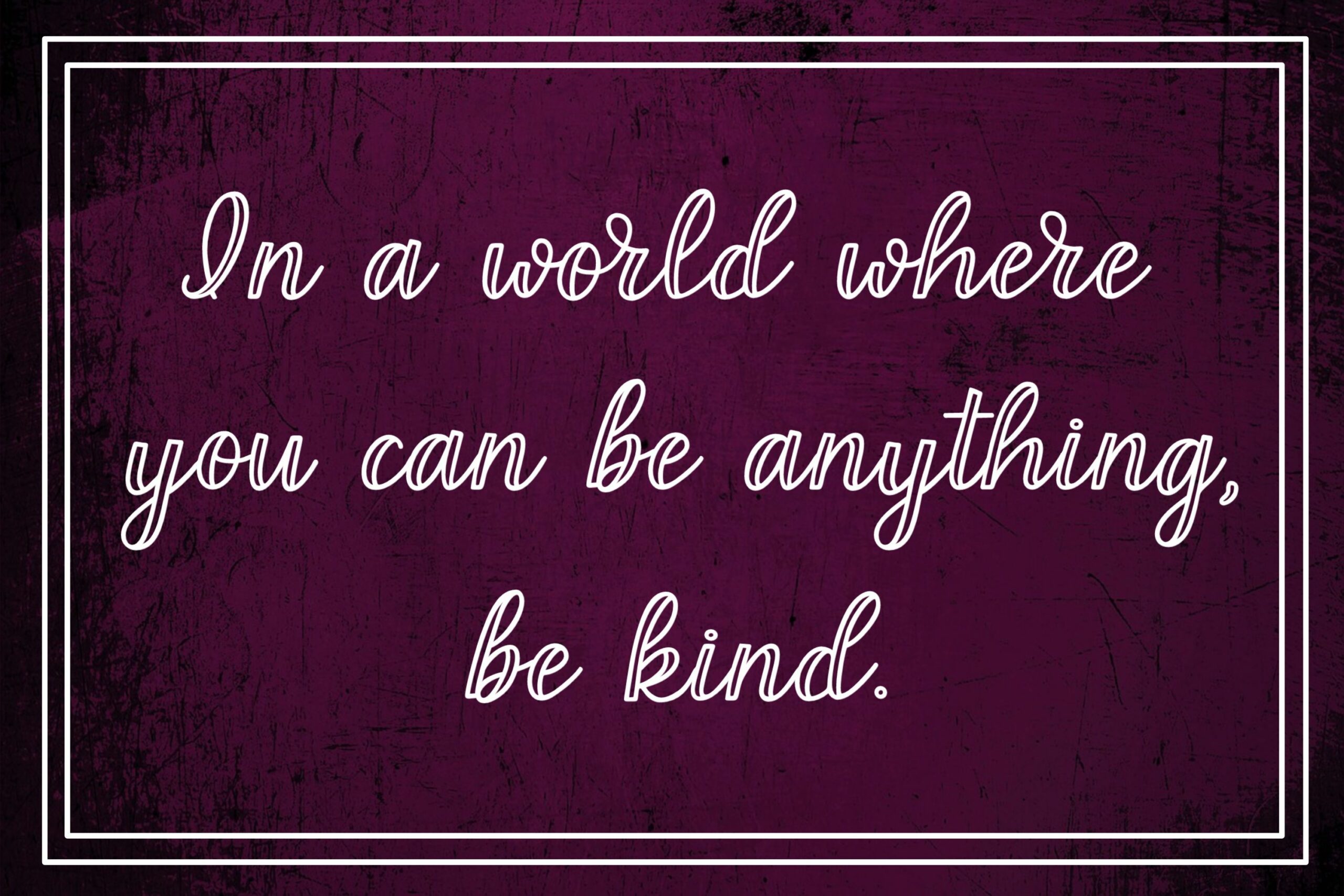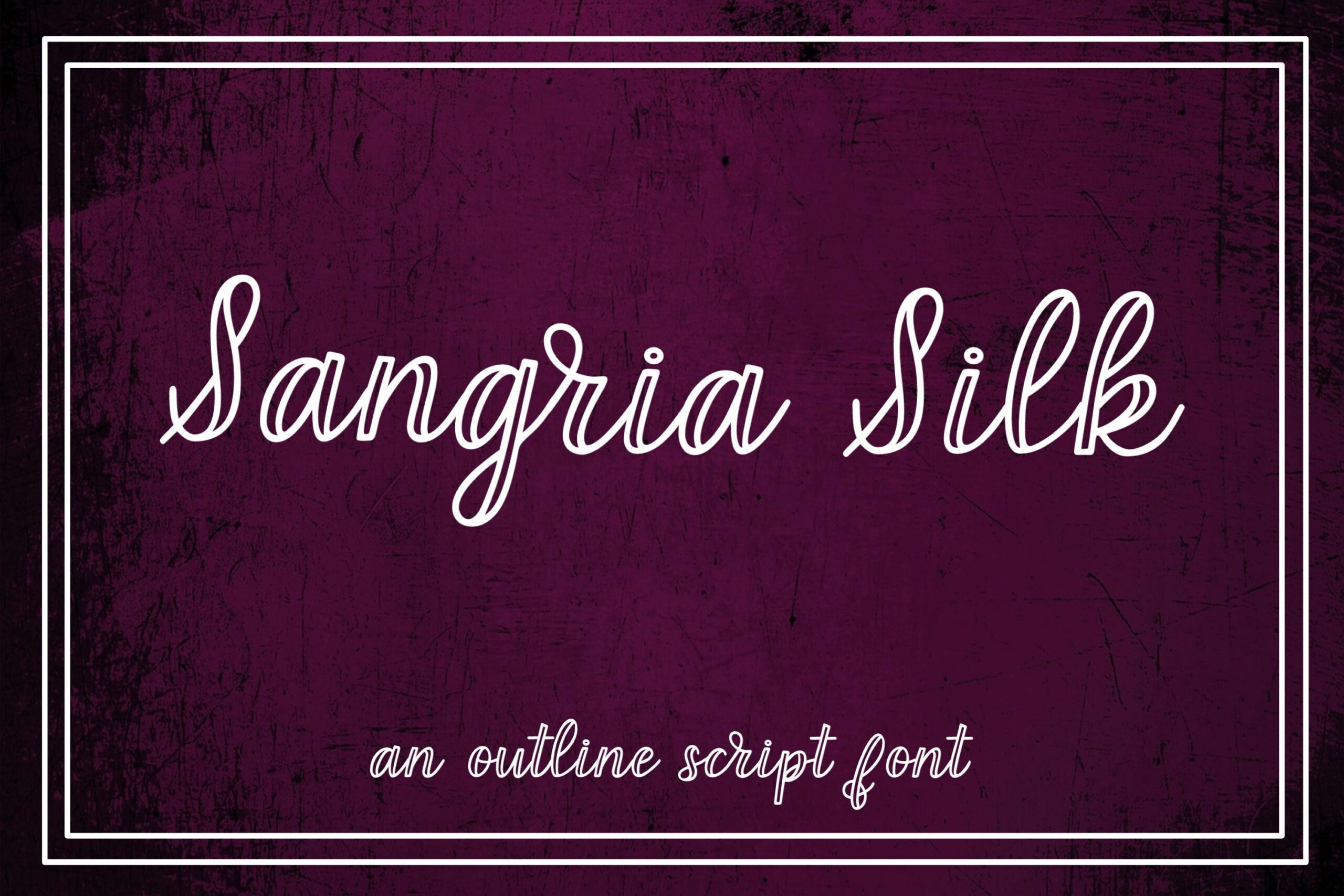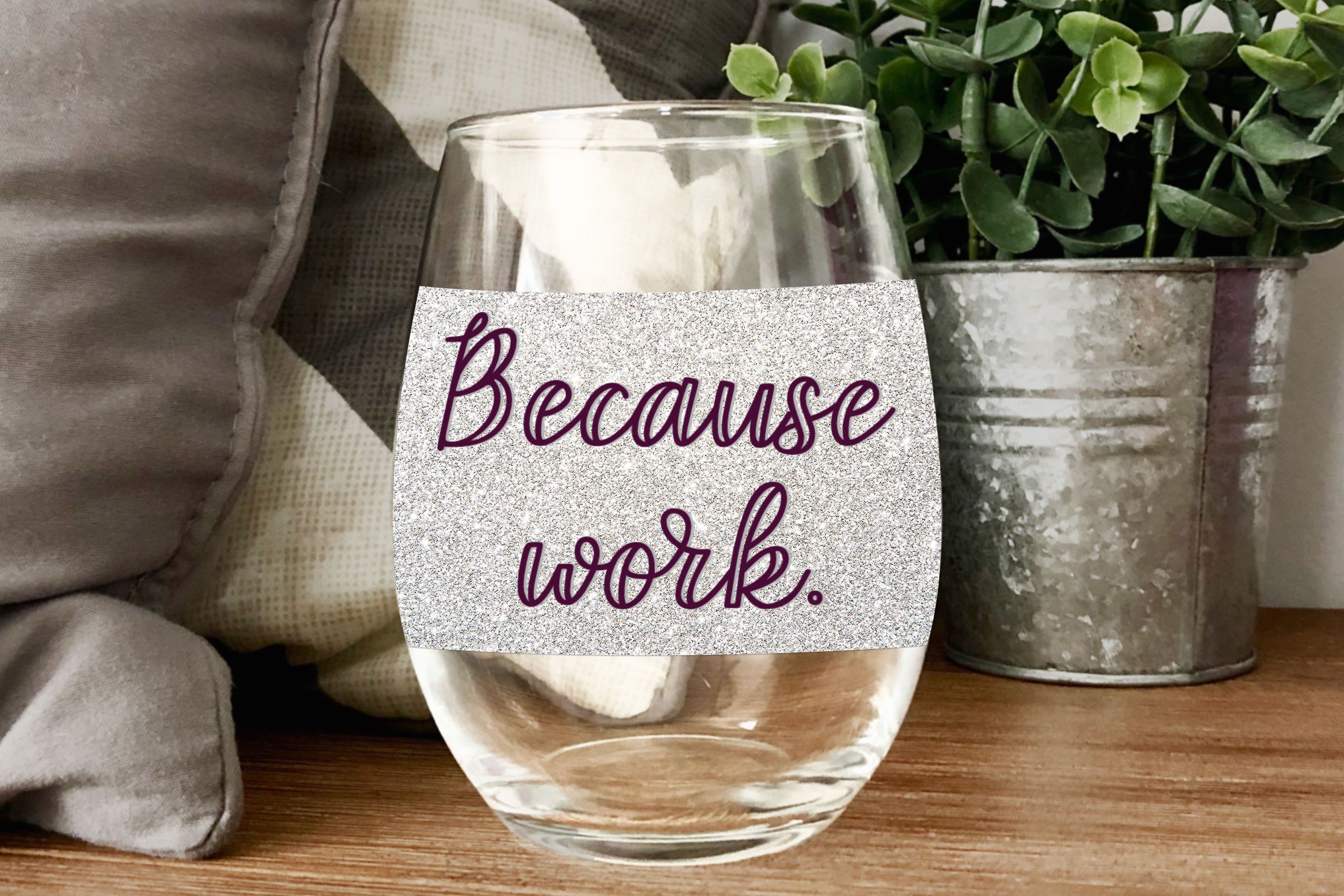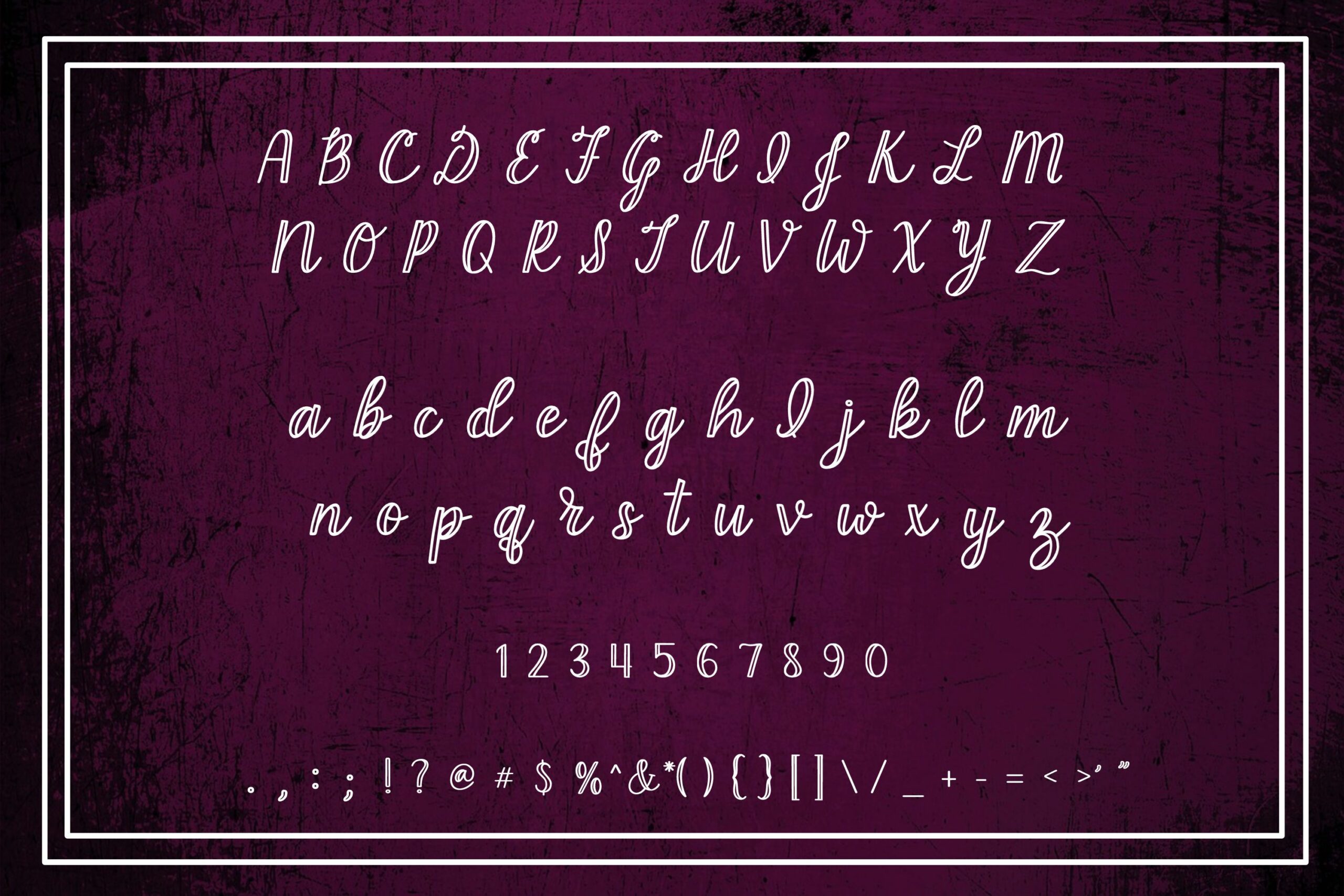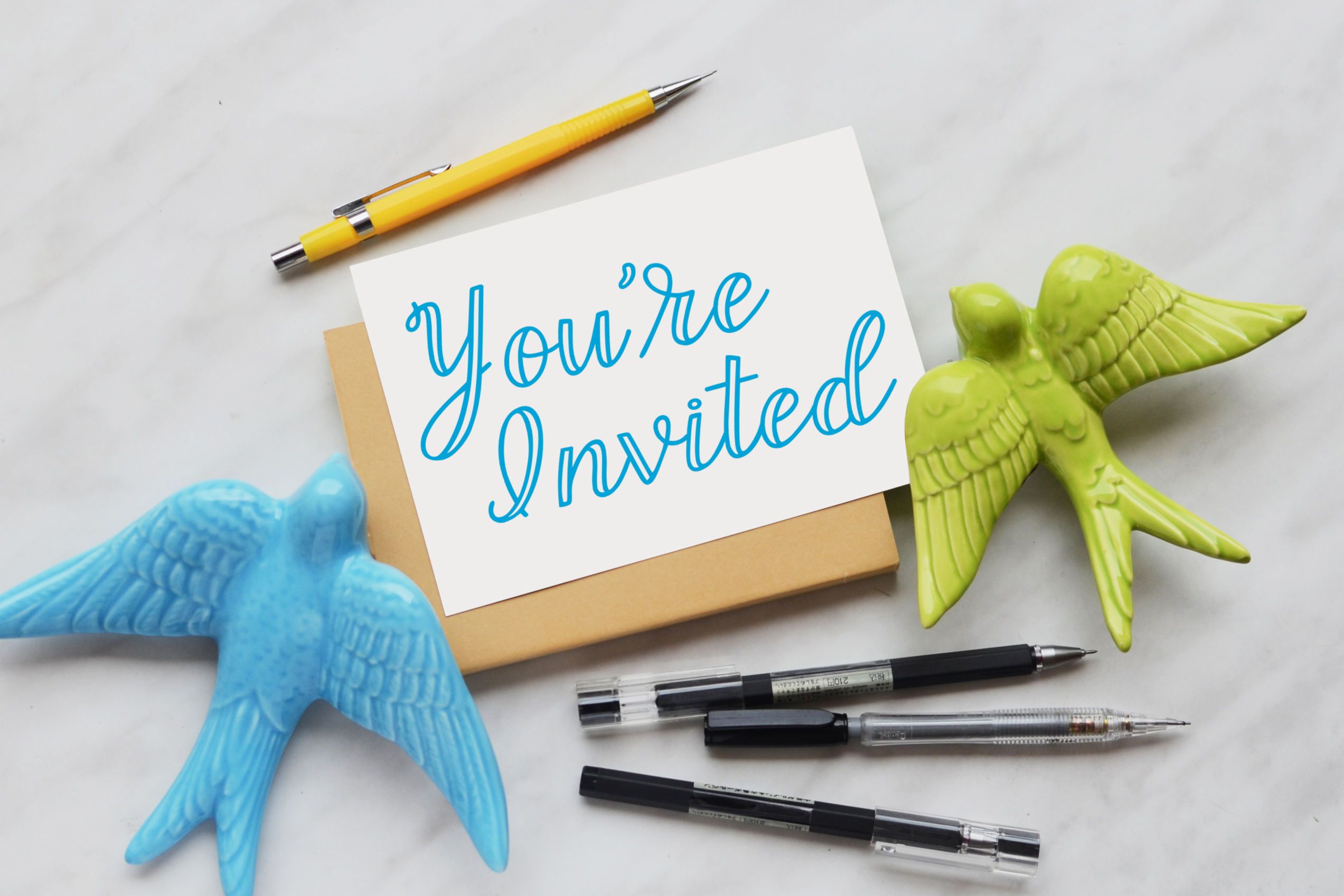
About Sangria Silk – an outline script font
Sangria Silk is a handlettered outline script font made up of capital letters A-Z, lowercase letters a-z, ligatures, numbers 0-9 and punctuation. Use Sangria Silk for SVG design, greeting cards, invitations, scrapbooking, and more! File Type: otf